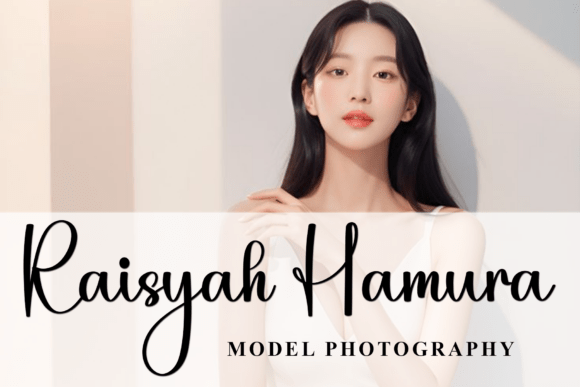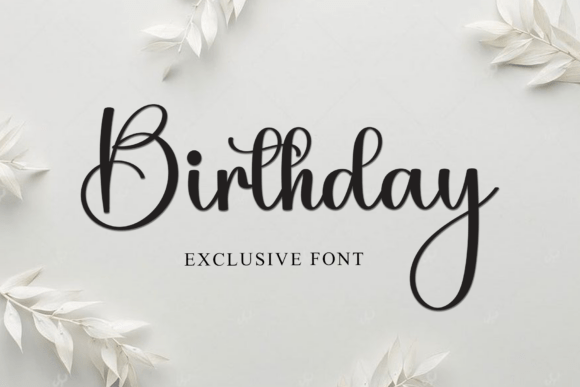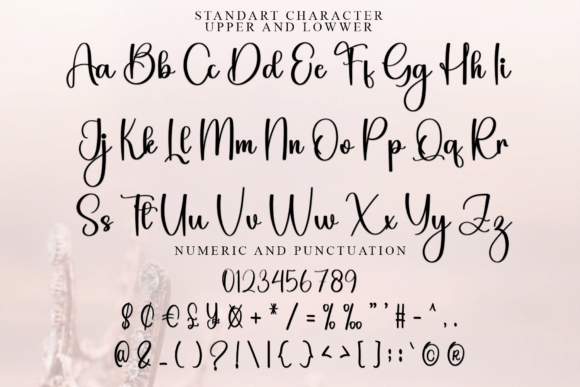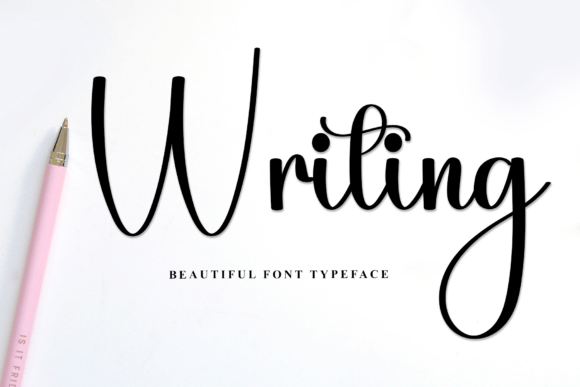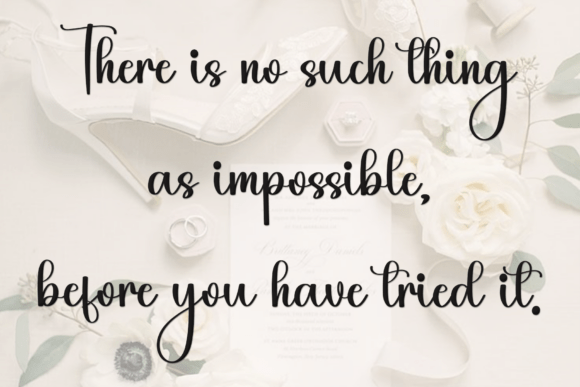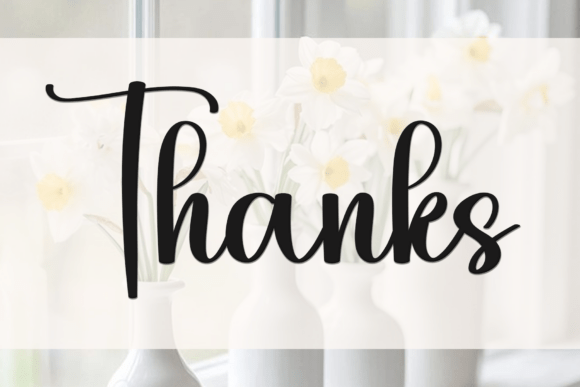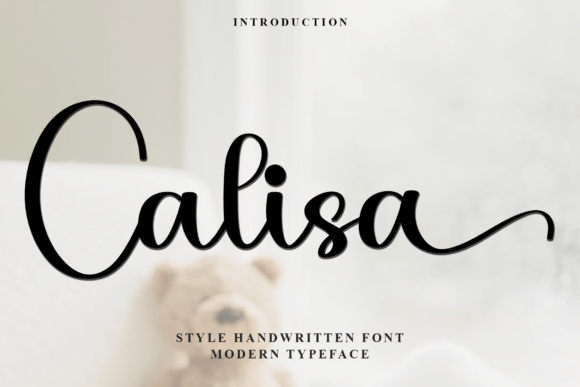
Discover the Charm of Calisa Font: A Sweet and Friendly Addition to Your Designs
Are you a designer or crafter looking for a font that can add a touch of warmth and personality to your projects? Look no further than Calisa Font! With its natural and unique style, Calisa is an incredibly versatile font that can be used in a wide range of designs, from sweet and playful to elegant and sophisticated.
The Unique Style of Calisa Font
Calisa Font is a one-of-a-kind typeface that boasts a sweet and friendly aesthetic. Its natural style makes it perfect for designs that require a personal touch, such as handmade crafts, invitations, and social media graphics. The font’s unique characteristics, including its subtle imperfections and organic feel, give it a charming and approachable vibe that is sure to capture the hearts of your audience.
Endless Design Possibilities with Calisa Font
The beauty of Calisa Font lies in its incredible versatility. Whether you’re designing a logo, brochure, or website, this font can be used in a variety of contexts to add a touch of warmth and personality. The only limit to what you can create with Calisa is your imagination! Here are just a few ideas to get you started:
- Handmade crafts: Use Calisa Font to add a personal touch to your handmade crafts, such as knitted items, jewelry, or ceramics.
- Invitations and stationery: Create beautiful invitations, greeting cards, and stationery with Calisa Font’s elegant and sophisticated style.
- Social media graphics: Use Calisa Font to create eye-catching social media graphics, such as quotes, posters, and infographics.
- Logos and branding: Create a unique and memorable logo for your business or brand with Calisa Font’s distinctive style.
Why Choose Calisa Font?
So why choose Calisa Font over other typefaces? Here are just a few reasons why designers and crafters love Calisa:
- Unique style: Calisa Font’s natural and unique style sets it apart from other fonts, making it perfect for designers who want to add a personal touch to their work.
- Versatility: Calisa Font can be used in a wide range of designs, from playful and whimsical to elegant and sophisticated.
- Ease of use: Calisa Font is easy to read and works well in both digital and print formats.
- Imagination-friendly: With Calisa Font, the only limit is your imagination! Let your creativity run wild and see what amazing designs you can create.
Tips for Using Calisa Font
Here are a few tips for getting the most out of Calisa Font:
- Experiment with sizes: Calisa Font looks great in a variety of sizes, from large headings to small body text.
- Play with colors: Calisa Font works well in a range of colors, from bright and bold to soft and pastel.
- Mix and match: Combine Calisa Font with other fonts to create a unique and eye-catching design.
In conclusion, Calisa Font is a sweet and friendly typeface that is perfect for designers and crafters who want to add a personal touch to their work. With its natural and unique style, Calisa is incredibly versatile and can be used in a wide range of designs. So why not give Calisa Font a try and see what amazing creations you can come up with? The only limit is your imagination!